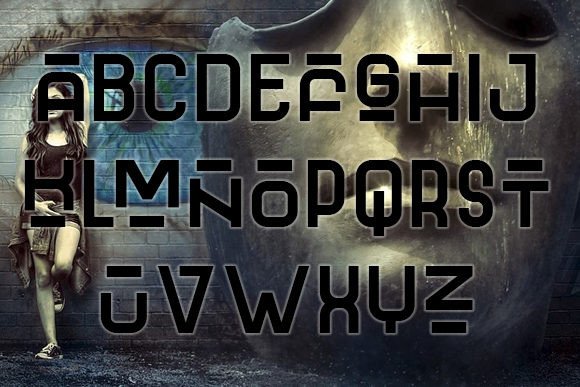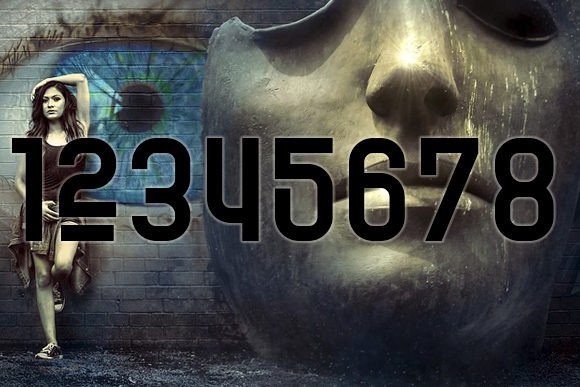
Introduction to Maskesa Font
Maskesa is a stunning abstract font with endless possibilities.
Use this font on shirts, banners, and headlines .
Maskesa Font offers exceptional quality and versatility, making it a valuable addition to your design toolkit. Whether you’re creating for personal projects or commercial use, Maskesa Font delivers professional results.